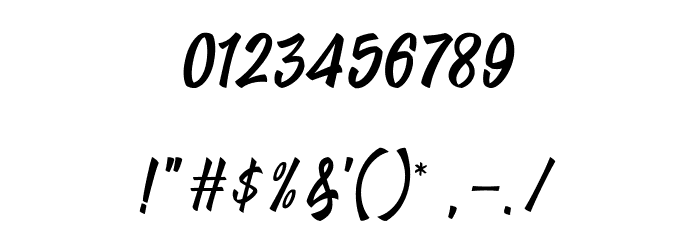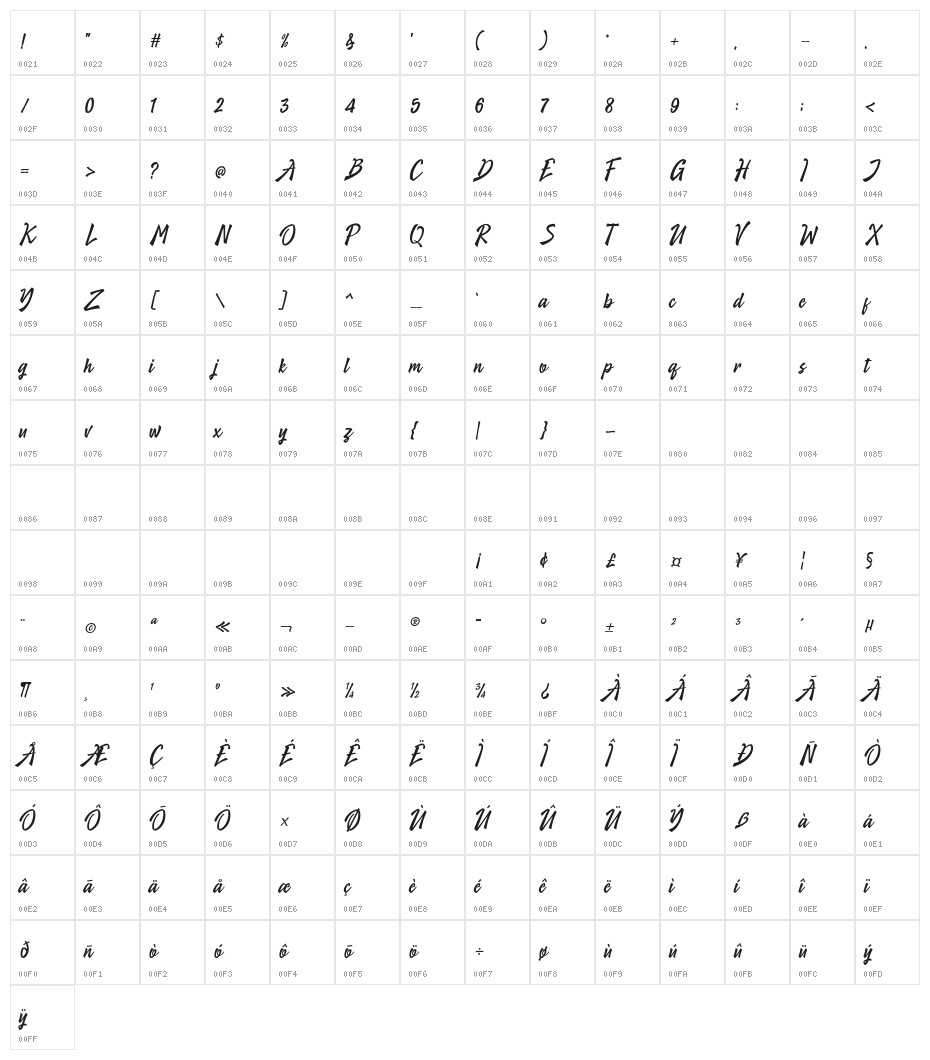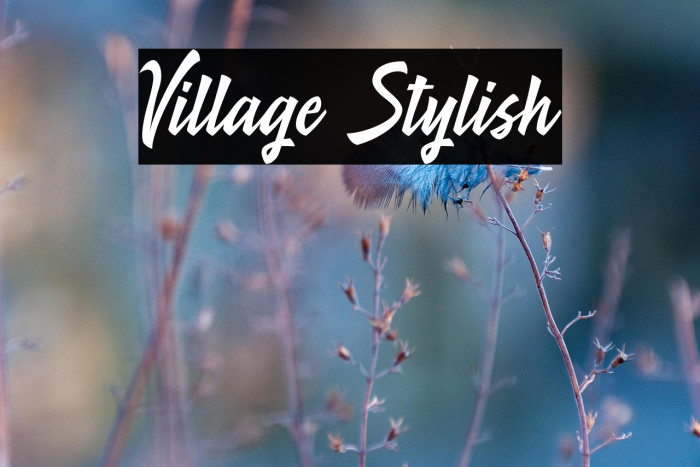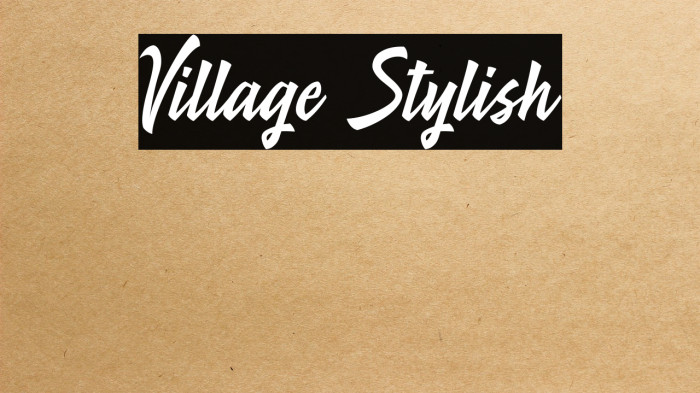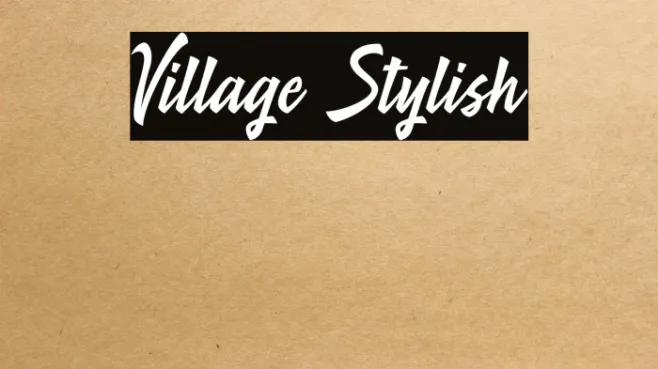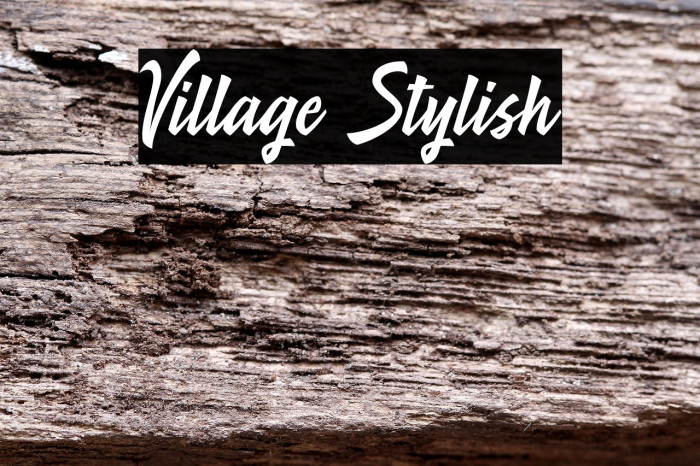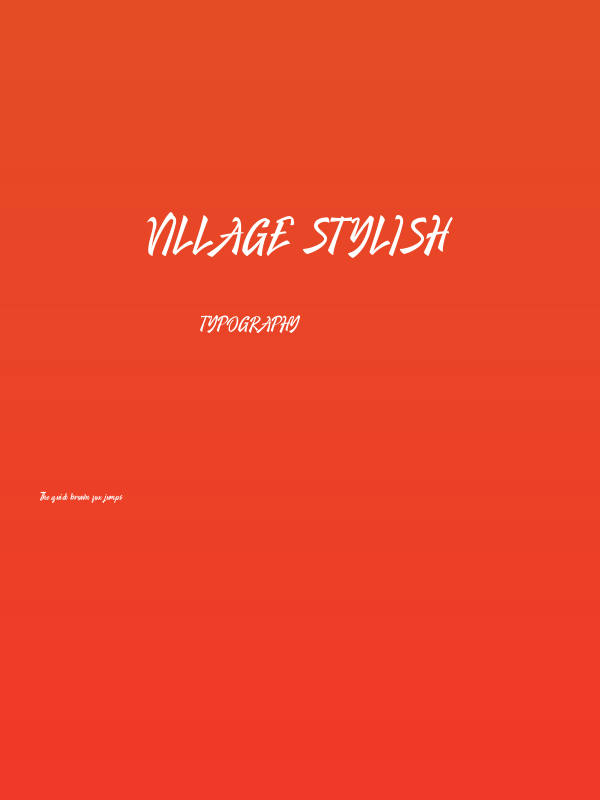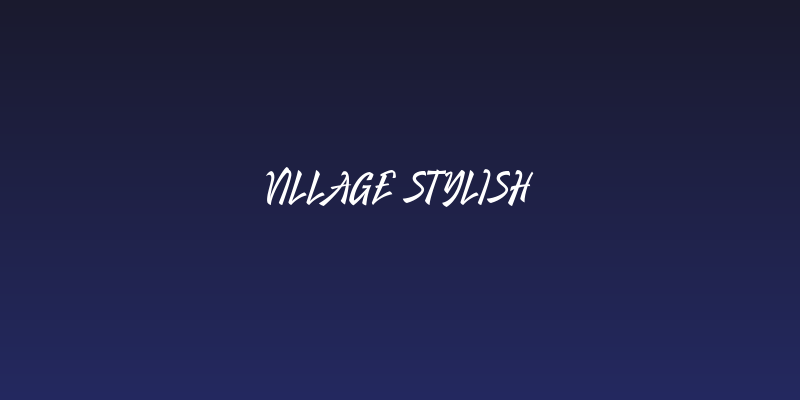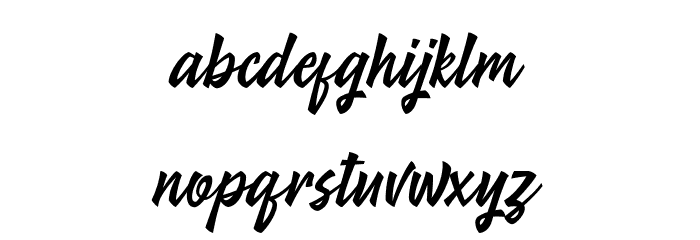
Village Stylish Font
Village Stylish Description
This font exudes a dynamic and energetic style with its bold, slanted characters that convey a sense of motion and flair. The uppercase letters are particularly striking, with sharp angles and a slightly exaggerated form that adds to their visual impact. The lowercase letters maintain a consistent style, offering a smooth and flowing appearance that complements the uppercase set. Numbers and special characters are designed with the same attention to detail, ensuring a cohesive look across all elements. The overall impression is one of modernity and expressiveness, making it suitable for projects that require a strong visual statement.
| Proposed Projects | Ideal for branding, posters, and any design needing a bold, energetic typeface. |